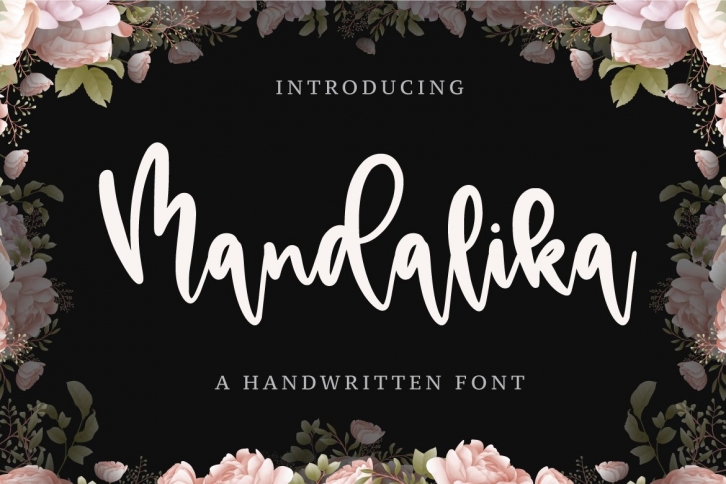
Mandalika is a great font that was designed by BaeMary Studios. Imagine the amount of combinations you can create using this font! The archive is 12.84 MB and it was released on October 25, 2021. Mandalika looks beautiful on wedding invitations, greeting cards, logos, posters, labels, t-shirt designs, logos, business cards and is perfect for use in ink or watercolor works, fashion, magazines, packaging and food menus, children's books and more!